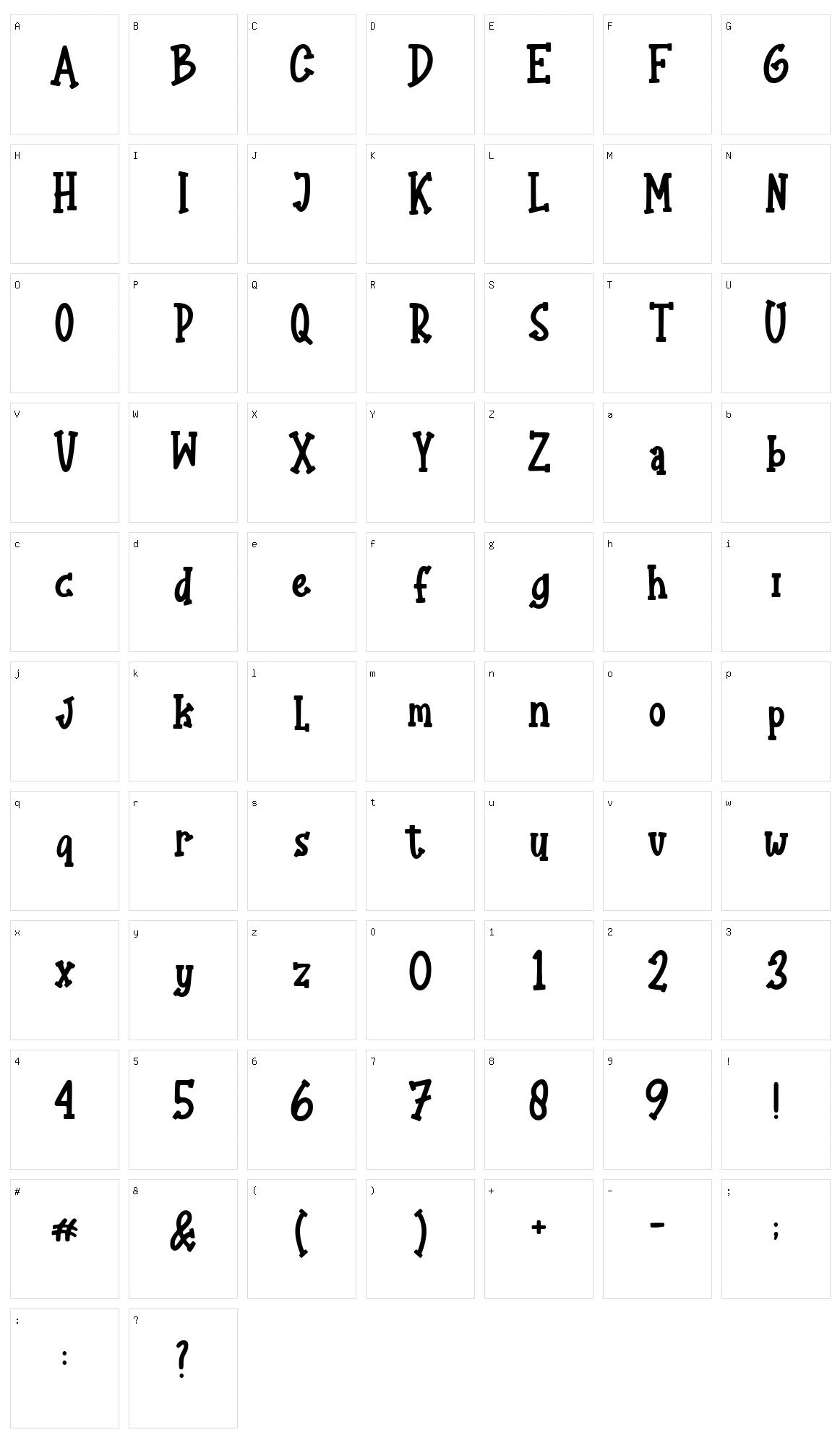
The free font Chillyk is carefully designed by Creatype Studio, showcasing a thoughtful balance of creativity and usability and falls under the Cartoon font style. When you download the ZIP file, it contains only 24.75 KB of font files, making it lightweight and quick to download. Please review the license details below to understand permitted usage and distribution rights. If license information is not available, we recommend using this font for personal projects only or contacting the author directly for commercial usage permissions.